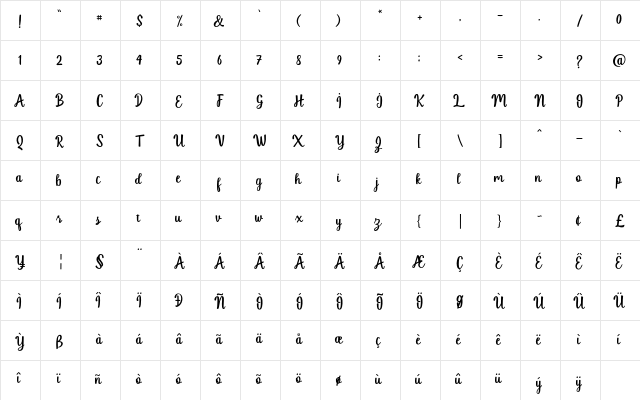
jellyfish Regular
| Foundry | Best Font Studio |
| Designer | Rifan Asri |
Design Context for jellyfish Typeface
jellyfish takes a measured approach to typography — its balanced proportions and neutral character make it a reliable workhorse for both digital and print work.